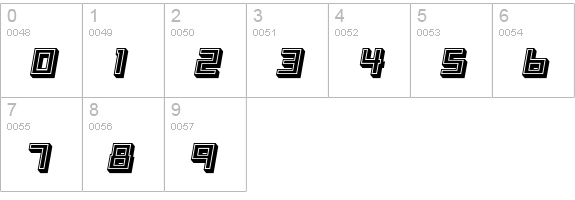
Basset RR Eight Font Details
Basset RR Eight font is a sleek and modern typeface that exudes sophistication and elegance. With its clean lines and well-balanced proportions, this font is perfect for a wide range of design projects, from branding to editorial design. The Basset RR Eight font features a unique blend of classic and contemporary elements, making it versatile and timeless. And the best part? Basset RR Eight font is completely free to download at FontsMarket.com! Whether you're a designer looking to enhance your projects or a business owner in need of a stylish font for your branding, Basset RR Eight font is the perfect choice. Don't miss out on this fantastic opportunity to elevate your designs with this exceptional font. Download Basset RR Eight font today and take your creations to the next level!